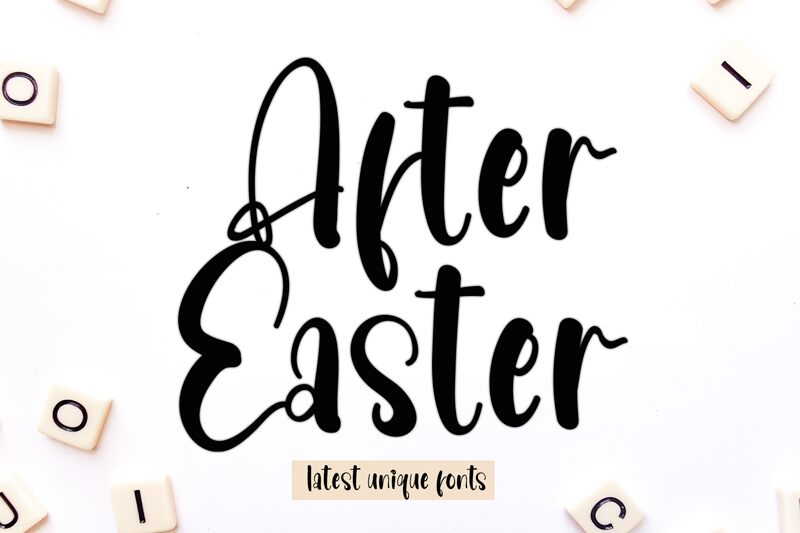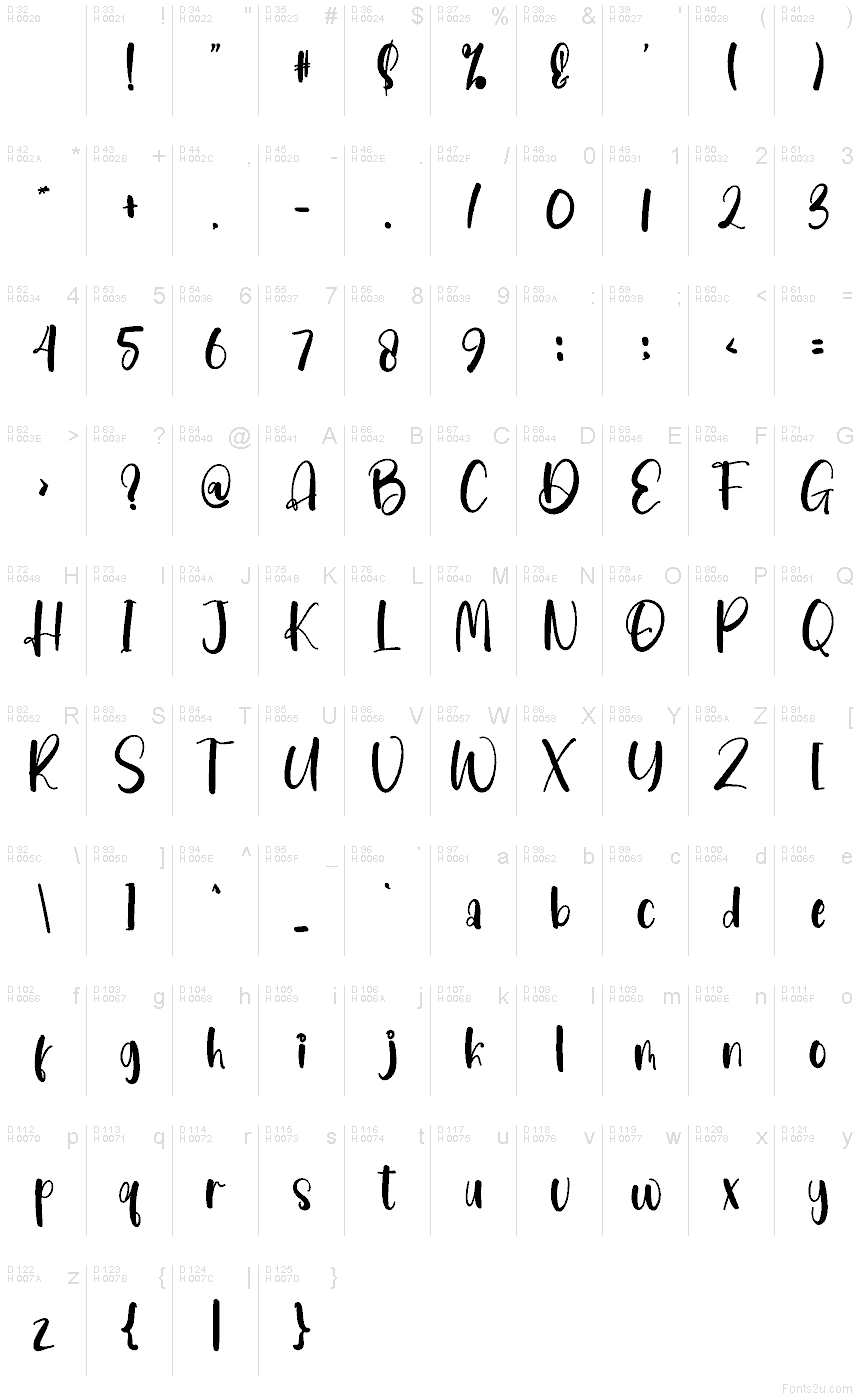
After Easter
After Easter font by Creatype Designer is a free handwritten script typeface with a playful, brushy flow that feels like ink swept across smooth card stock. Tall, looping capitals and softly bouncing baselines give it a friendly, crafty warmth, while the thick strokes keep every word bold and easy to read, even at smaller sizes.
Using After Easter, you can bring a cozy, handmade feel to holiday cards, party invitations, social media graphics, product packaging, logo marks, stickers, and printable decor. This free font shines when used large for short phrases; pair it with a clean, light sans serif for body text to keep your layouts balanced and readable.